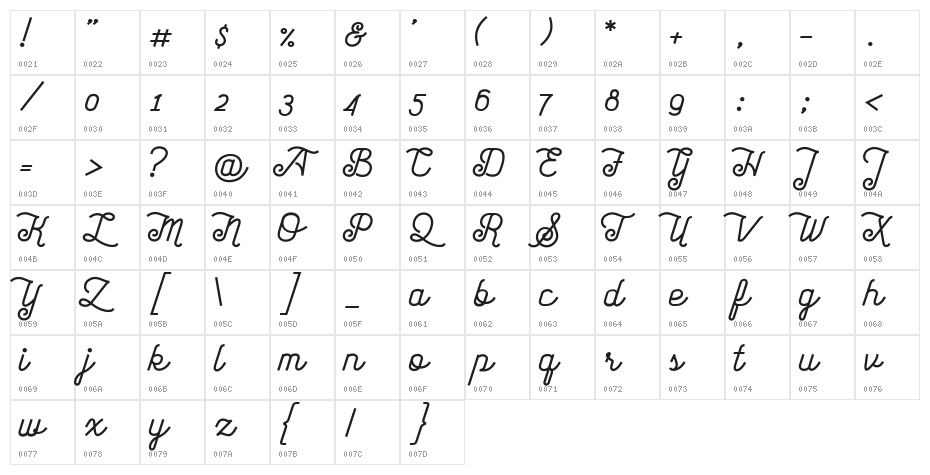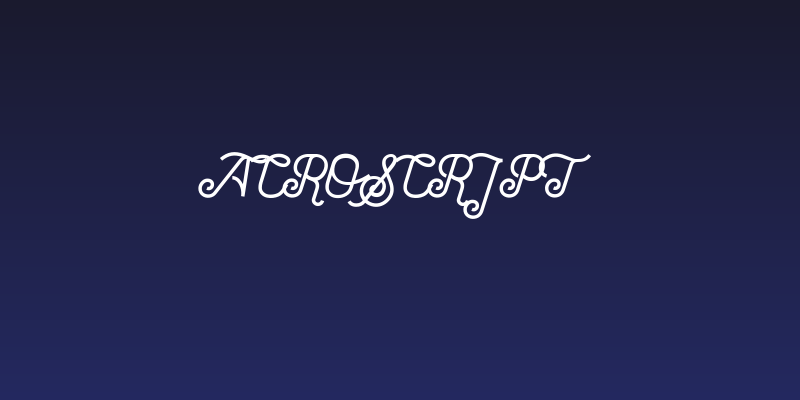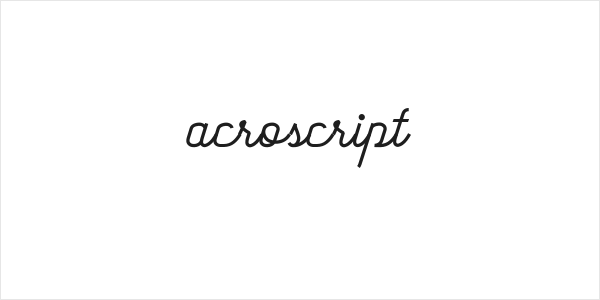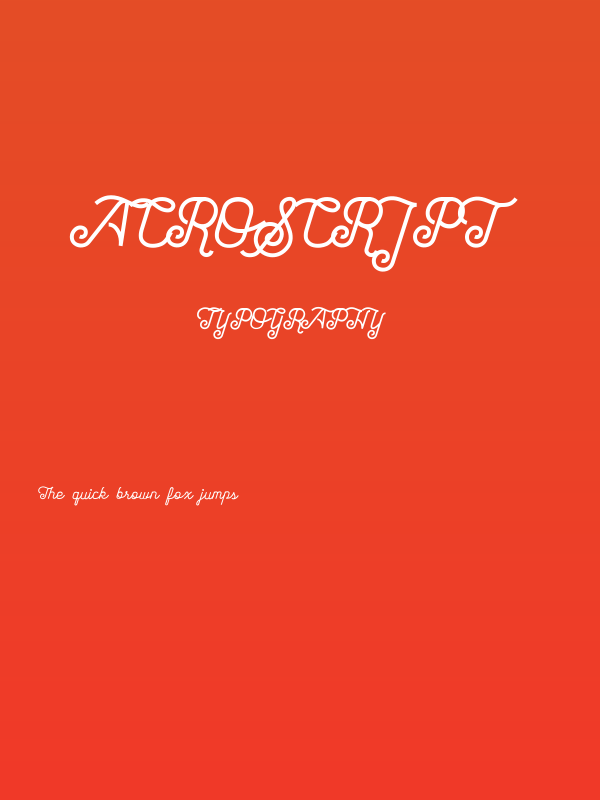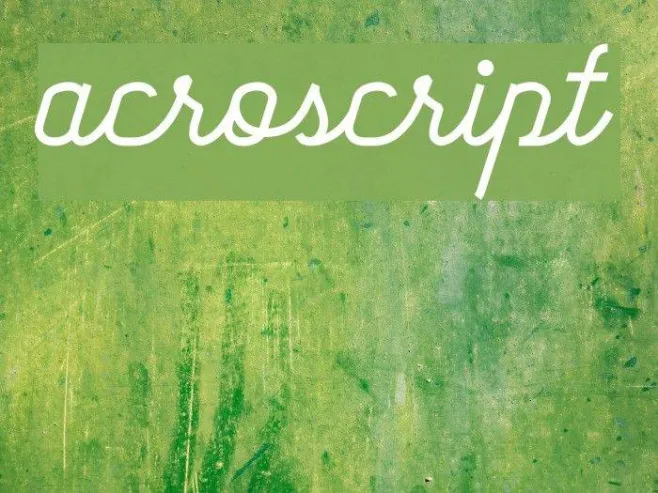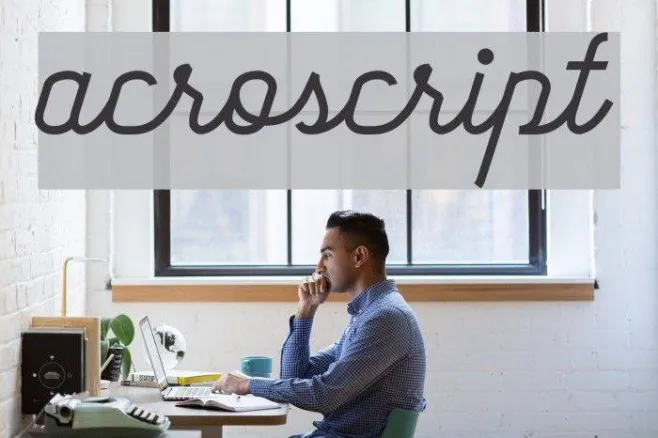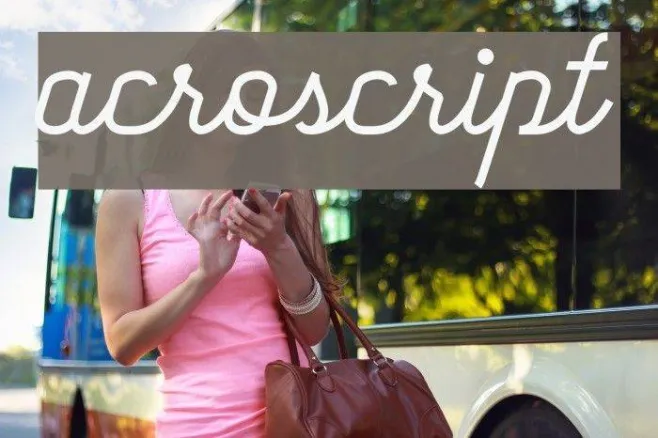
acroscript Font
acroscript Description
This font features an elegant and flowing script style with a playful twist. The uppercase letters are adorned with decorative loops and swirls, giving them a whimsical and artistic flair. The lowercase letters maintain a smooth and connected cursive form, which enhances readability while retaining a sense of sophistication. The numerals are consistent with the script style, featuring slight curves that complement the overall design. Special characters are creatively integrated, maintaining the font's cohesive aesthetic. This font is ideal for projects that require a touch of elegance and creativity.
ACROSCRIPT UPPERCASE
ACROSCRIPT LOWERCASE
ACROSCRIPT OTHER CHARS
| Use Case | Logos, Invitations, Decorative Text |
| Proposed Projects | Ideal for wedding invitations, greeting cards, branding, and decorative signage. |